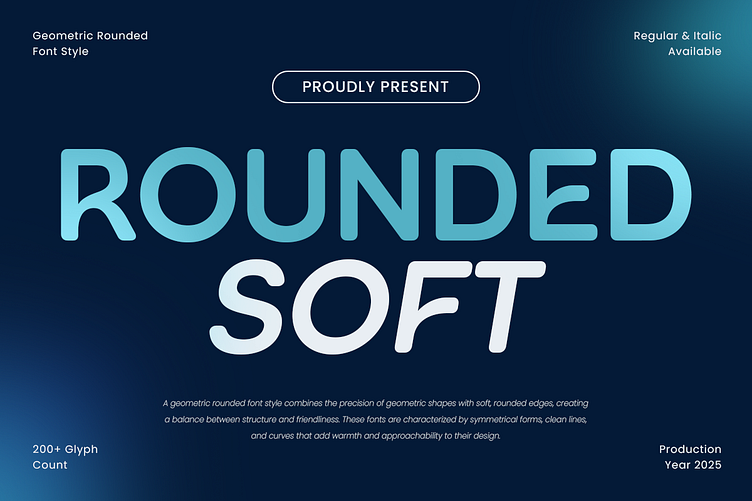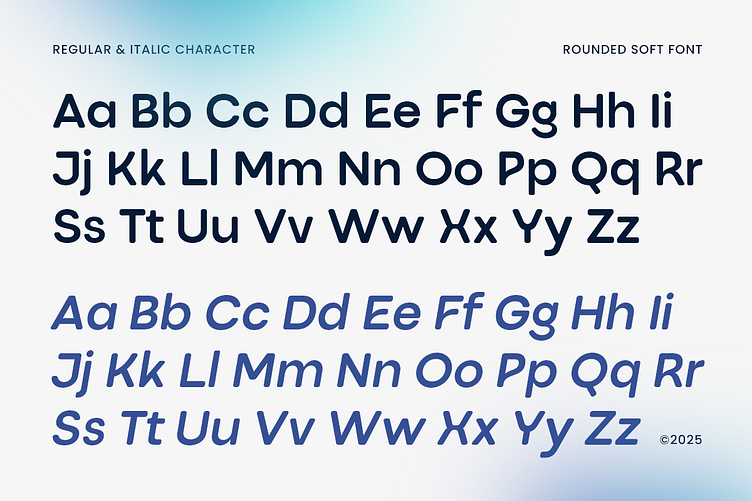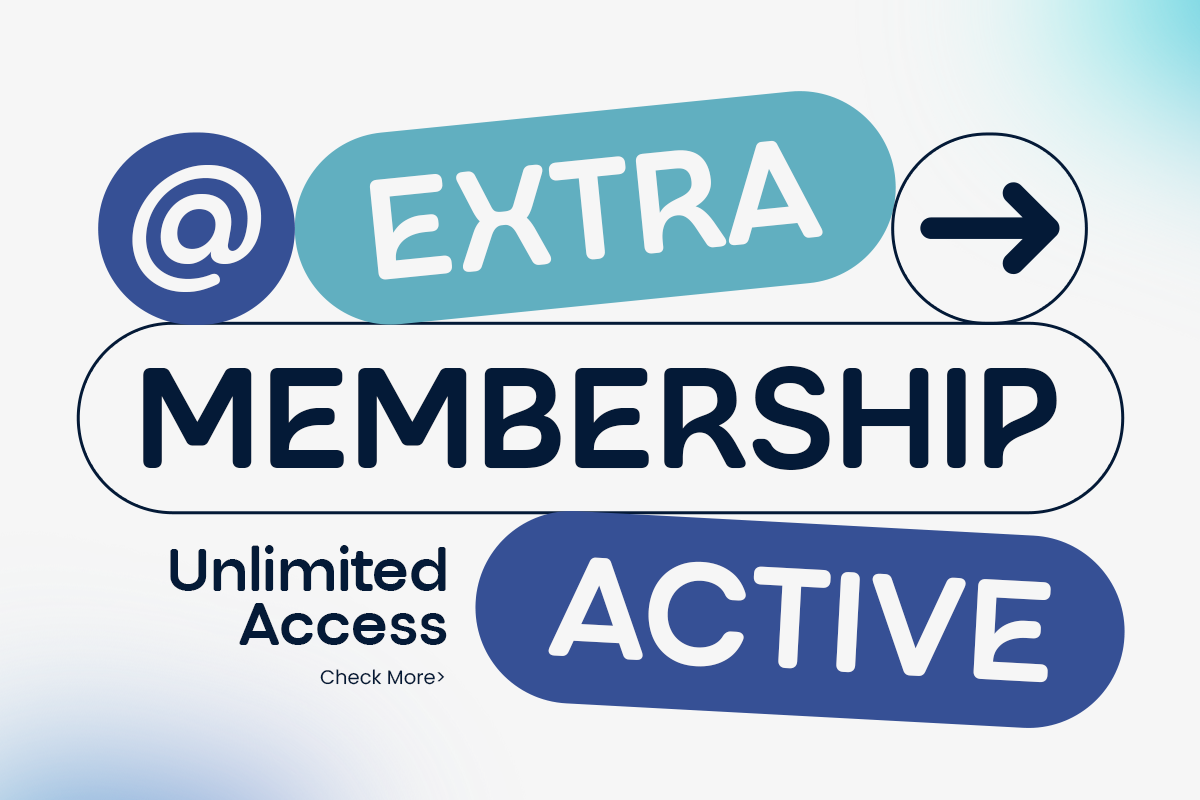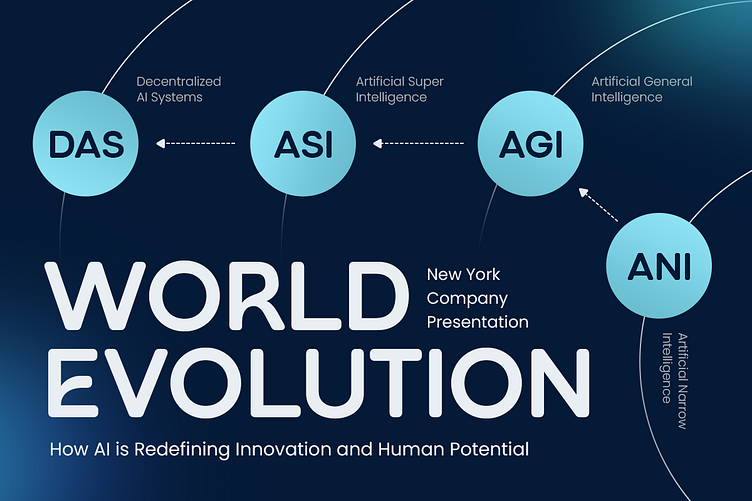
Rounded Soft โ Friendly Modern Font for Clean Brand Design ๐
Meet Rounded Soft, a modern typeface built with clean geometry and smooth curvesโperfect for brands that want to appear friendly, professional, and contemporary.
We designed Rounded Soft to blend the precision of geometric shapes with the warmth of rounded edges. The result? A typeface that feels approachable yet highly structured. Itโs ideal for projects that need to balance modern clarity with human softness. Whether you're working on a tech startup, corporate branding, UI design, or a bold logoโRounded Soft delivers a clean and inviting tone.
โ Clean & Professional โ great for modern corporate use
โ Rounded Edges โ soft, friendly, and easy to read
โ Perfect for logos, packaging, app interfaces, and branding systems